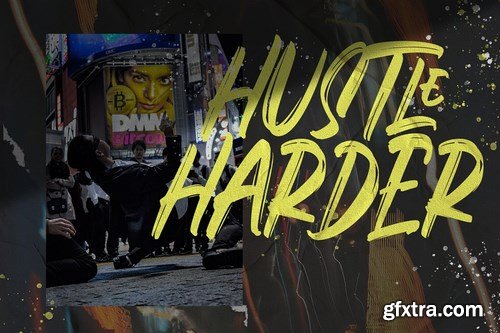
Mighty Brush is a script handwritten brush font. Its unique flow and style makes it perfect to use for prints, logos, logos & branding, invitations, stationery, wedding designs, social media posts, advertisements, product packaging, product designs, labels, photography, watermarks, special events or anything.